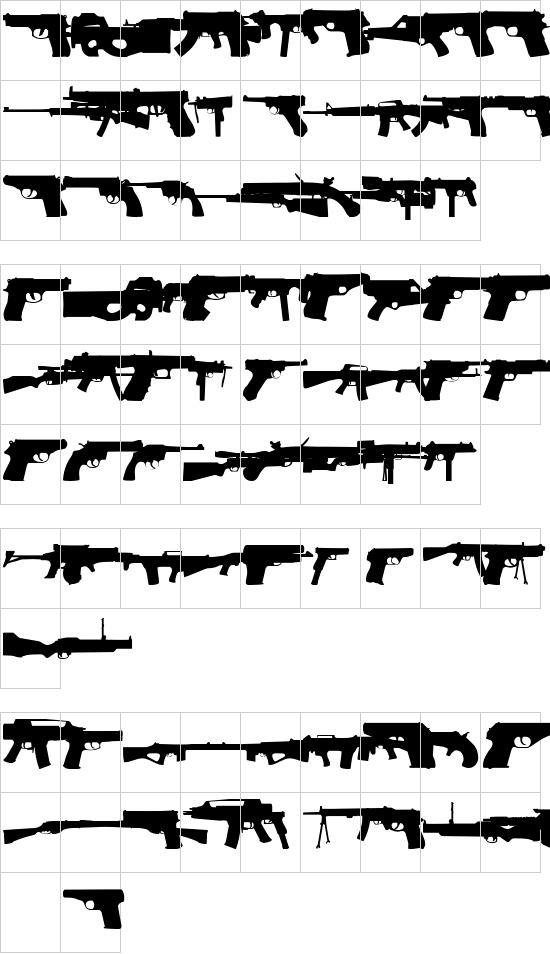
2nd Amendment is a dingbat font built around firearm and weapon-themed icons rather than readable text. Each key maps to a drawn piece of hardware or related symbol, turning the keyboard into a quick source of themed illustrations.
That icon set fits gun-range branding, tactical apparel graphics, hunting club flyers, and themed poster accents. 2nd Amendment is free to download as a TrueType file, and you can preview the glyphs by typing across the keys to see which icons appear before you use them.